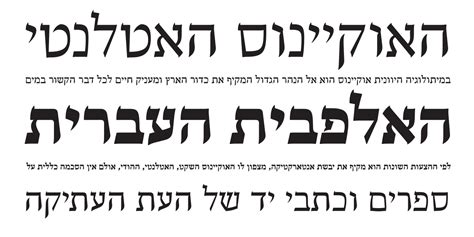
Not only is our Hebrew-style font visually appealing, but it also adds a sense of authenticity to any project related to Jewish culture or traditions. This typeface is perfect for creating invitations, posters, logos, and any other design requiring an elegant Hebrew font style.
The first step involves selecting the font style you want to use. You can choose between different Hebrew styles, such as Miriam, Eatim, or David.
Step 2: Customize the Font
After selecting your preferred font, you can customize various elements such as text size, color, and font weight. You can also add shadows, outlines, and unique background effects to make your text stand out.
Step 3: Preview and Download
Once done with customizing, you can preview how your design will look like before downloading it in various formats such as PNG or SVG.
Benefits of Using the Hebrew Style Font Generator
The Hebrew Style Font Generator comes with several benefits that make it stand above other options:
Easy to Use
The Hebrew Style Font Generator has a user-friendly interface that is easy to navigate, even for users who have no experience with design tools.
Unique and Captivating
The Hebrew Style Font Generator provides unique fonts that are sure to capture the attention of your audience. You can play around with various aspects of the design to come up with something unique that best reflects your brand.
Caters to Various Needs
Whether you need stylish headings for your website or unique typography for branding purposes, the Hebrew Style Font Generator has options that cater to all your needs.
Flexible Customization
The Hebrew Style Font Generator enables you to customize every aspect of your font design, from color to shadows, ensuring your text stands out and captures your audience's attention.
- There is a wide variety of Hebrew style fonts available in the generator, ranging from classic calligraphy to modern designs.